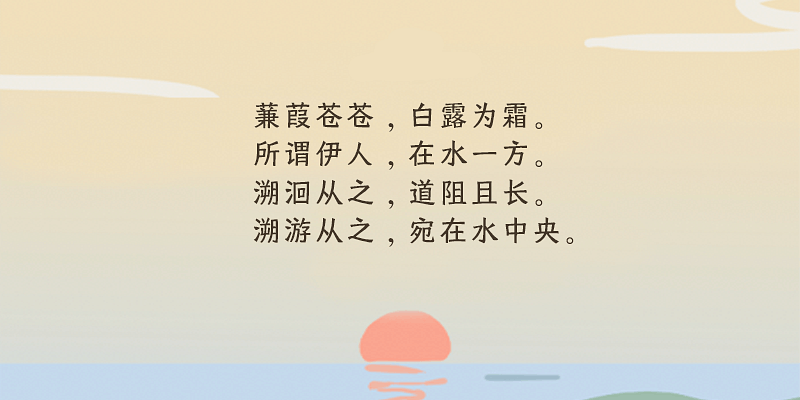
Fotor HelloFont Gong Yi Ti Font Free Download is a modern and friendly Chinese typeface that blends simplicity with handcrafted charm. The name “Gong Yi Ti” (工艺体) translates to “Craft Style,” and the font embodies this with clean yet slightly softened strokes that give it a human, approachable feel—perfect for branding, packaging, DIY-inspired products, creative posters, and lifestyle designs that value authenticity.
Fotor HelloFont Gong Yi Ti Font Free Download combines geometric balance with subtle irregularities that mimic handmade design, making it a great choice for projects that need to feel both contemporary and personal. It supports simplified Chinese characters along with basic Latin, making it ideal for bilingual layouts and cross-cultural branding.
Whether you're designing stationery, boutique labels, or casual web banners, this font offers warmth and style with professional readability.
Charming, clean, and creatively versatile—Fotor HelloFont Gong Yi Ti adds a handcrafted spirit to your typography, making your designs feel thoughtful and beautifully crafted.